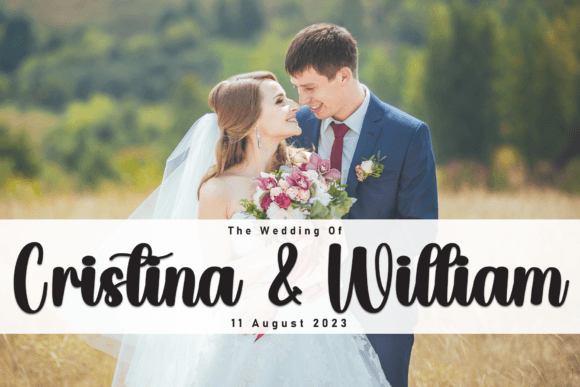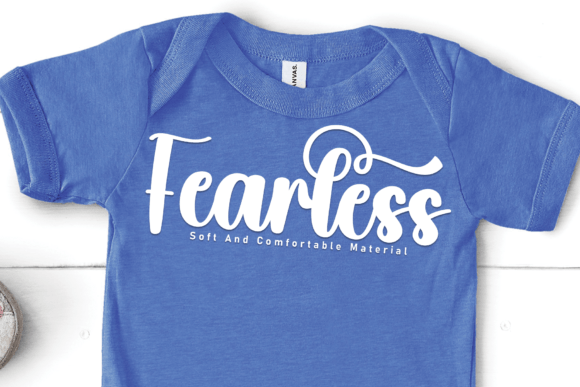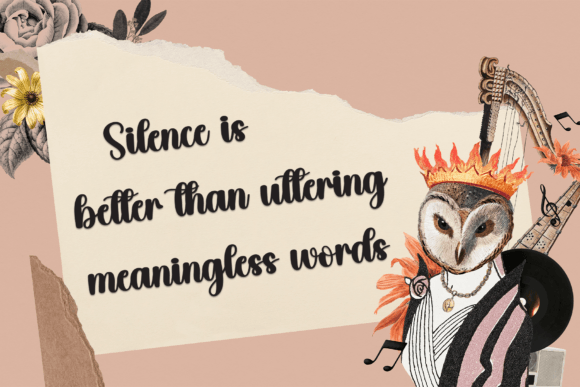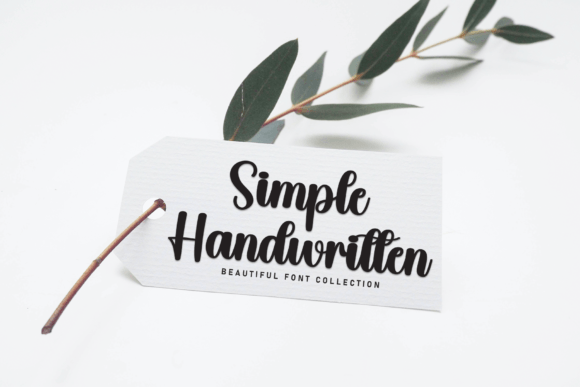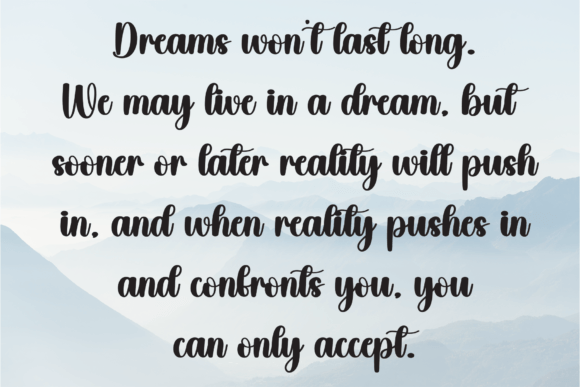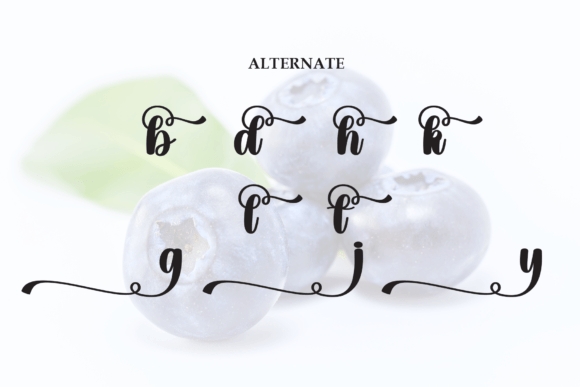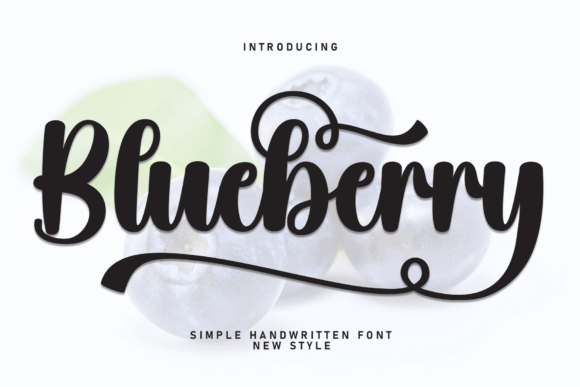
Introducing Blueberry Font: The Perfect Blend of Elegance and Modernity
Are you on the hunt for a font that exudes sophistication, elegance, and a touch of modernity? Look no further than Blueberry Font! This exquisite handwritten font is masterfully designed to capture the hearts of designers and crafters alike. With its classy calligraphic influences and fresh, contemporary feel, Blueberry Font is sure to become your new favorite.
The Story Behind Blueberry Font
Blueberry Font is more than just a beautiful font – it’s a work of art. Crafted with precision and passion, this font is designed to bring a touch of luxury to any project. Whether you’re working on a branding campaign, a wedding invitation, or a craft project, Blueberry Font is the perfect choice. Its unique blend of traditional calligraphy and modern flair makes it versatile and adaptable to a wide range of design applications.
What Makes Blueberry Font So Special?
So, what sets Blueberry Font apart from other fonts on the market? Here are just a few of its standout features:
- Exquisite Handwritten Design: Blueberry Font is a true masterpiece of handwritten design. Each letter is carefully crafted to create a sense of fluidity and movement, making it perfect for projects that require a personal touch.
- Classy Calligraphic Influences: With its roots in traditional calligraphy, Blueberry Font brings a level of sophistication and elegance to any project. Its calligraphic influences are evident in its flowing lines, delicate strokes, and refined letterforms.
- Contemporary and Fresh: Despite its classic roots, Blueberry Font feels surprisingly modern and fresh. Its clean lines, subtle nuances, and clever design make it perfect for projects that require a contemporary edge.
How to Use Blueberry Font in Your Projects
Blueberry Font is incredibly versatile, making it suitable for a wide range of design applications. Here are just a few ideas to get you started:
- Branding and Packaging: Use Blueberry Font to add a touch of luxury to your brand’s packaging, labels, and marketing materials.
- Wedding Invitations and Stationery: Create beautiful, bespoke wedding invitations, stationery, and other paper goods with Blueberry Font.
- Crafting and DIY Projects: Add a personal touch to your crafting and DIY projects, such as handmade cards, gift tags, and scrapbooking pages.
Tips for Getting the Most Out of Blueberry Font
To truly make Blueberry Font shine in your projects, here are a few expert tips to keep in mind:
- Experiment with Font Sizes and Styles: Play around with different font sizes and styles to create visual interest and hierarchy in your designs.
- Pair with Complementary Fonts: Combine Blueberry Font with complementary fonts to create a unique and harmonious typographic combination.
- Don’t Be Afraid to Get Creative: Blueberry Font is designed to be versatile, so don’t be afraid to experiment and try new things!
In conclusion, Blueberry Font is a true gem in the world of typography. With its exquisite handwritten design, classy calligraphic influences, and modern freshness, it’s the perfect choice for designers and crafters looking to add a touch of elegance and sophistication to their projects. So why wait? Fall in love with Blueberry Font and bring your projects to the highest levels!